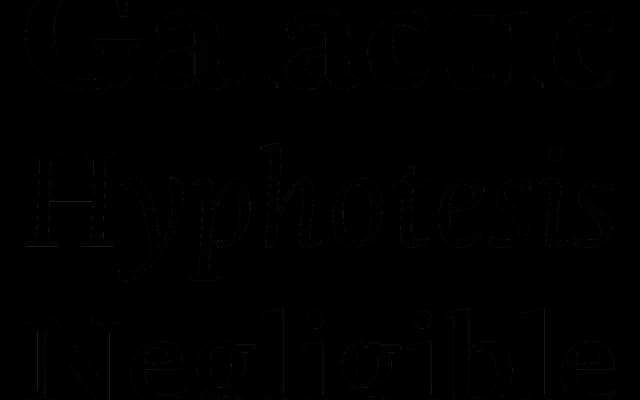
Novel Serif
A contemporary serif from Atlas Fonts, positioned for text-setting and extended reading.
Novel Serif is part of the Novel family from Atlas Fonts, a contemporary serif designed with text use in mind. The scraped page content was minimal, offering little detail on weights, italics or language coverage beyond the standard purchasing options for DTP, web and app licensing. Based on the family name and foundry positioning, it sits within the range of current text serifs suited to editorial and publishing work.
Named and positioned as a serif typeface; the 'Novel' family branding suggests a contemporary, text-oriented design intended for sustained reading.